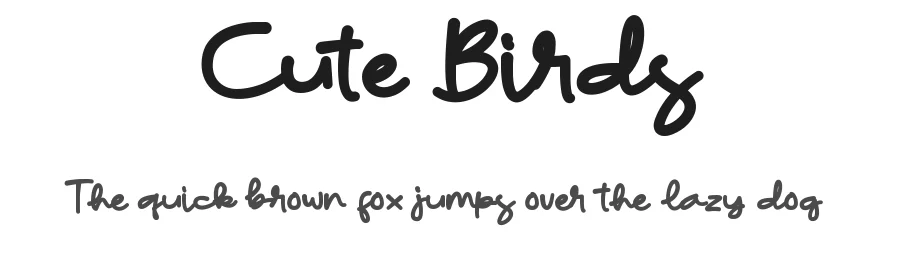
About Laziest Cat Font
Laziest Cat Font is a script font that shines as a display or heading face. Pair it with a clean sans-serif or serif font for body text β the contrast creates a clear hierarchy while the two styles stay balanced and easy to read.
Laziest Cat Font
by ONG Type